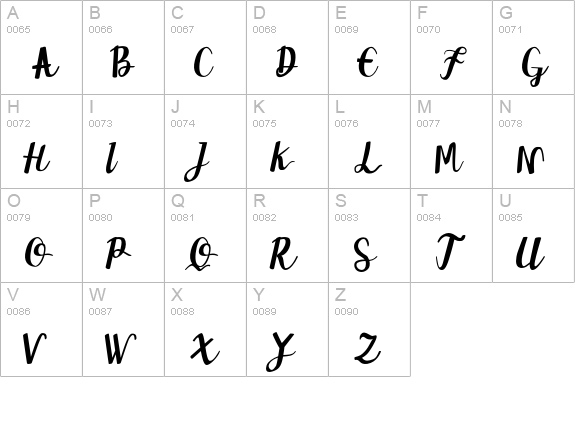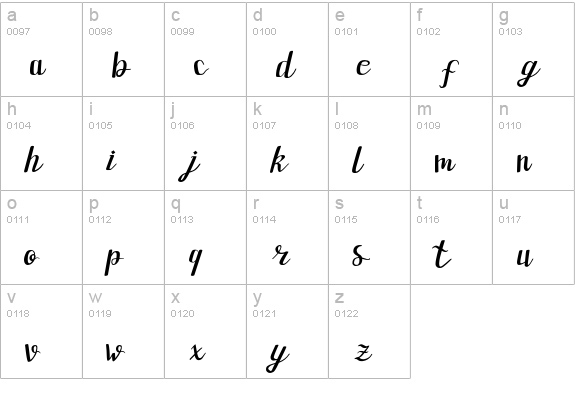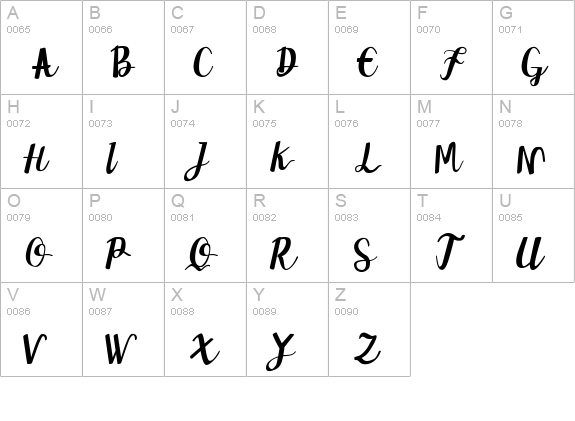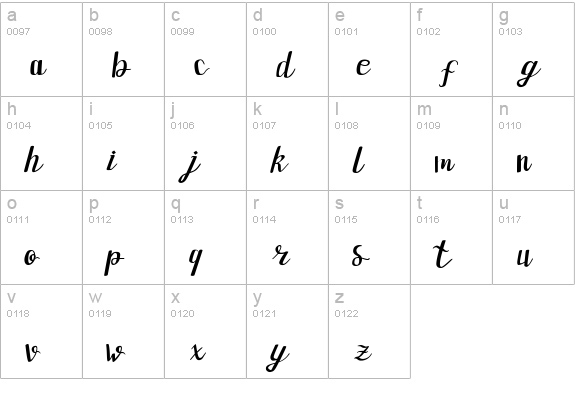
Baliny Font Details
Baliny is a demo font in the Fancy > Cartoon category, designed by craftsupplyco. It has been downloaded 6 times and is available for Windows, Mac and Linux.
Introducing Baliny font, a stunning display typeface that exudes elegance and sophistication. With its sleek lines and intricate details, Baliny font is perfect for adding a touch of luxury to any design project. Whether you're working on branding, editorial design, or any other creative endeavor, Baliny font is sure to make a lasting impression.